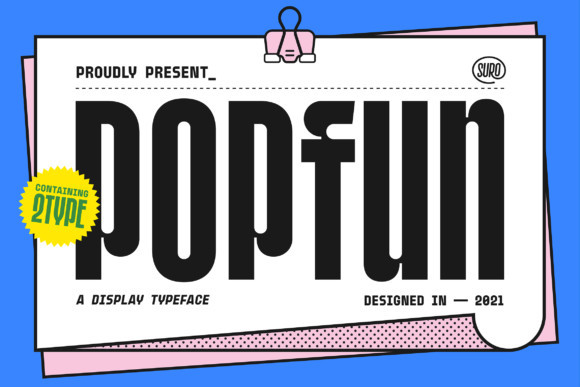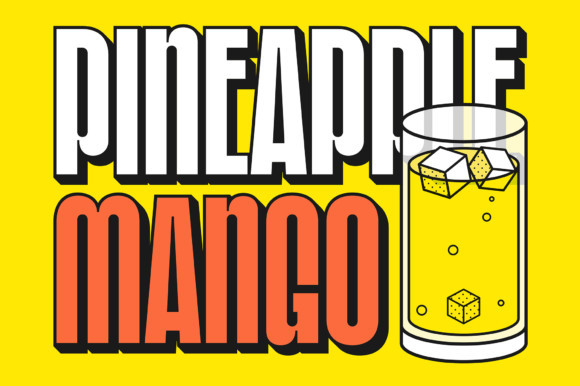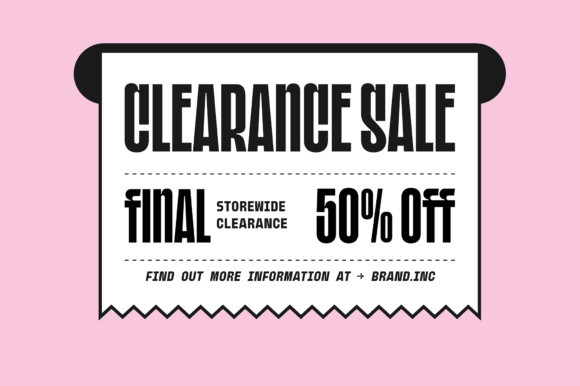
POPFUN Font
Popfun is a fun, playful and cool display font. This original look will appeal to a wide range of crafty ideas, from letterheads and titles, to stationery.